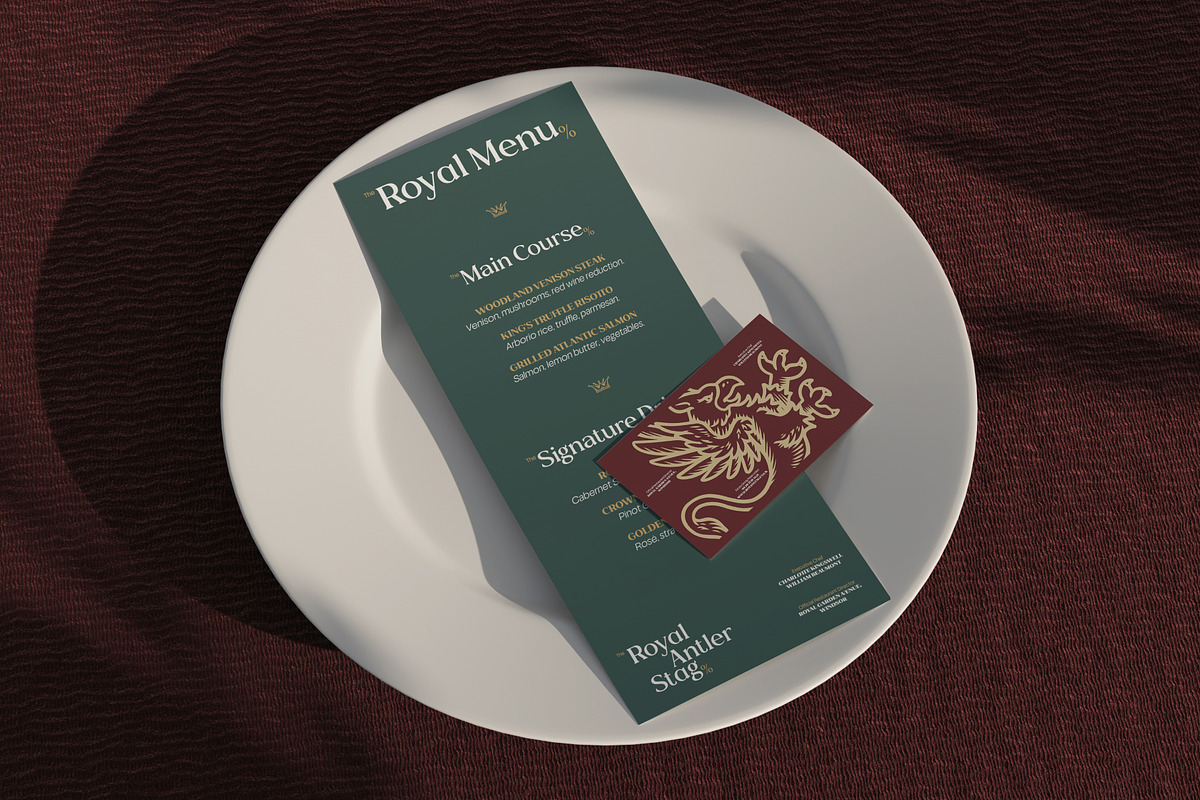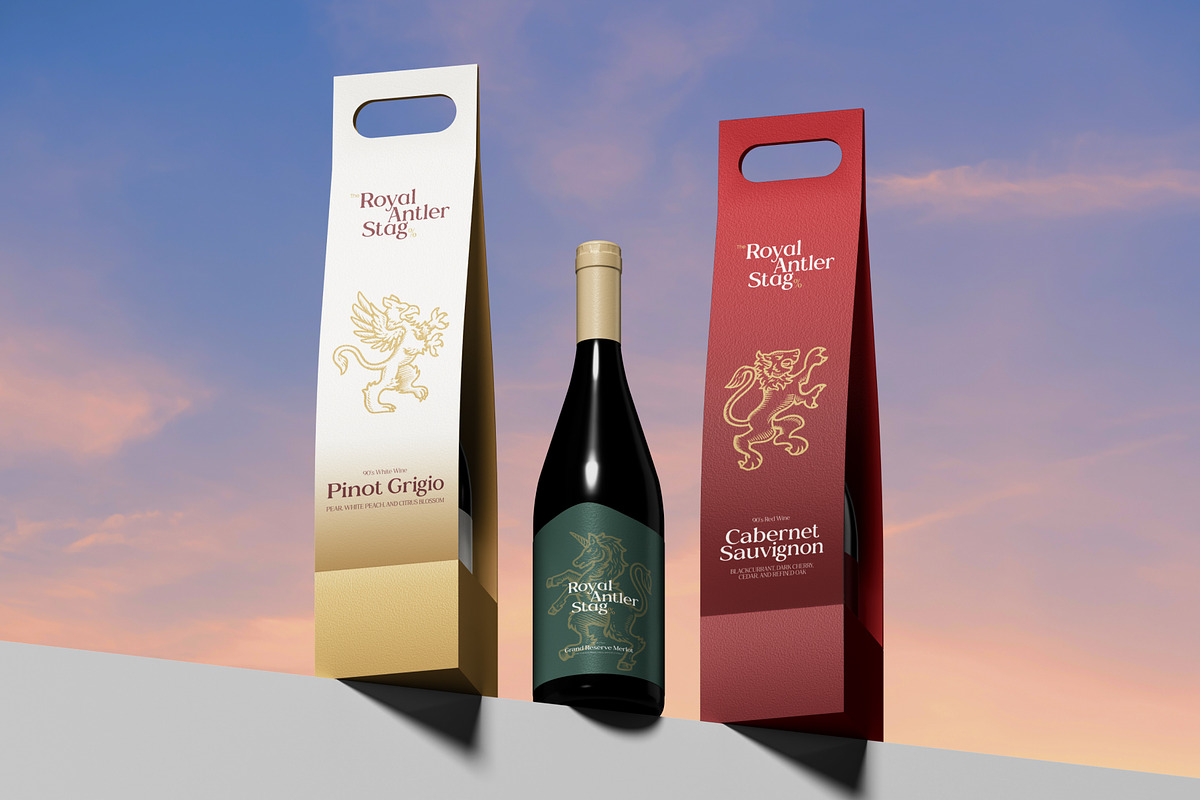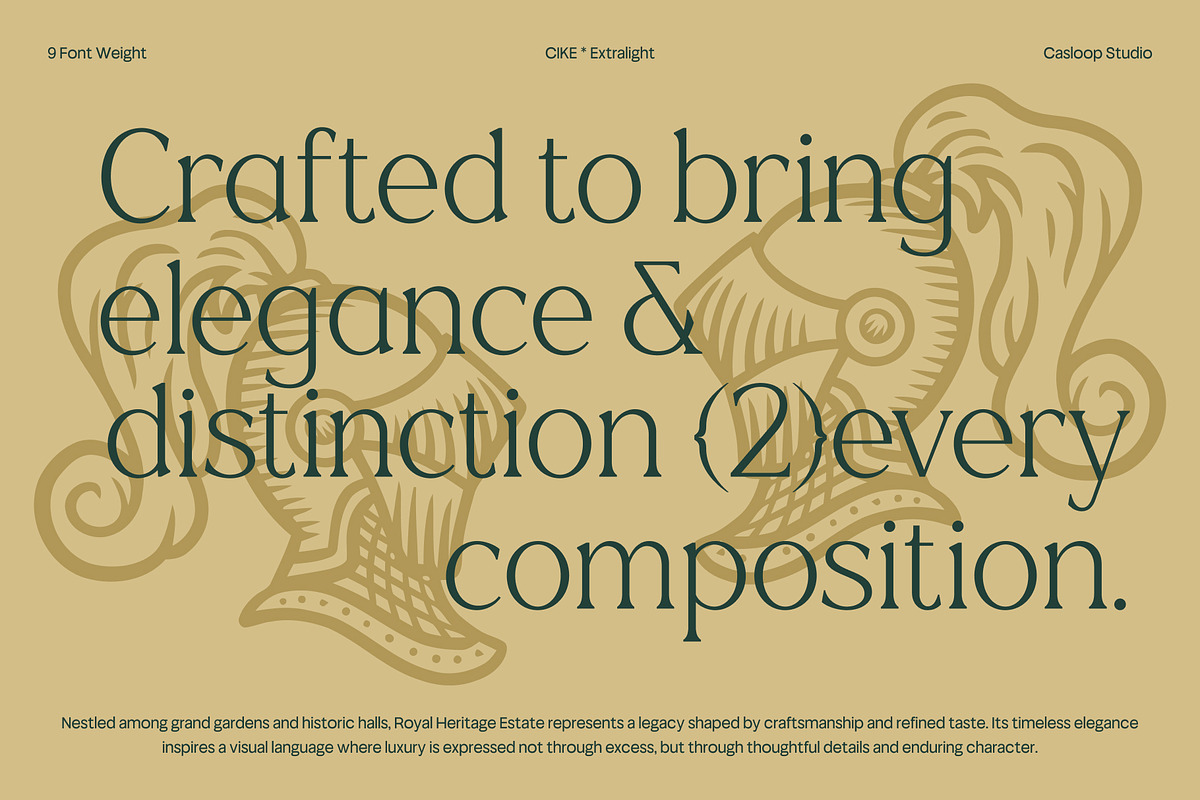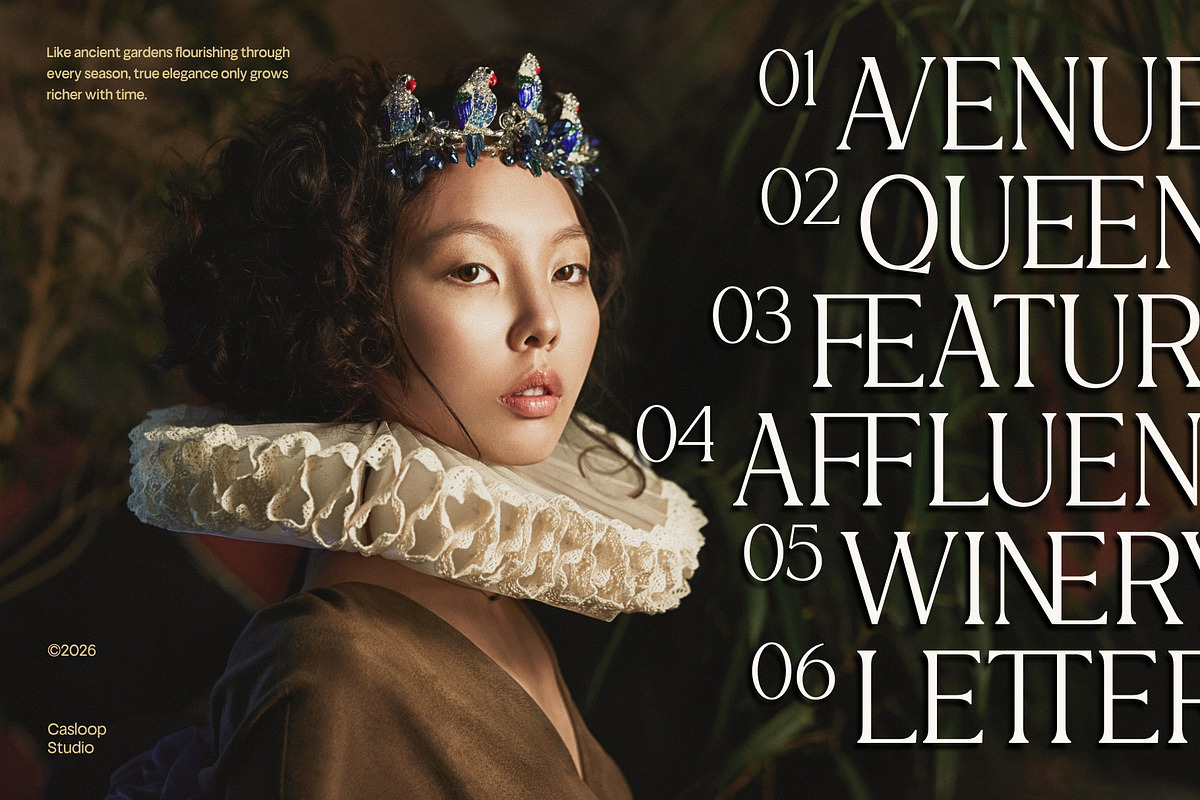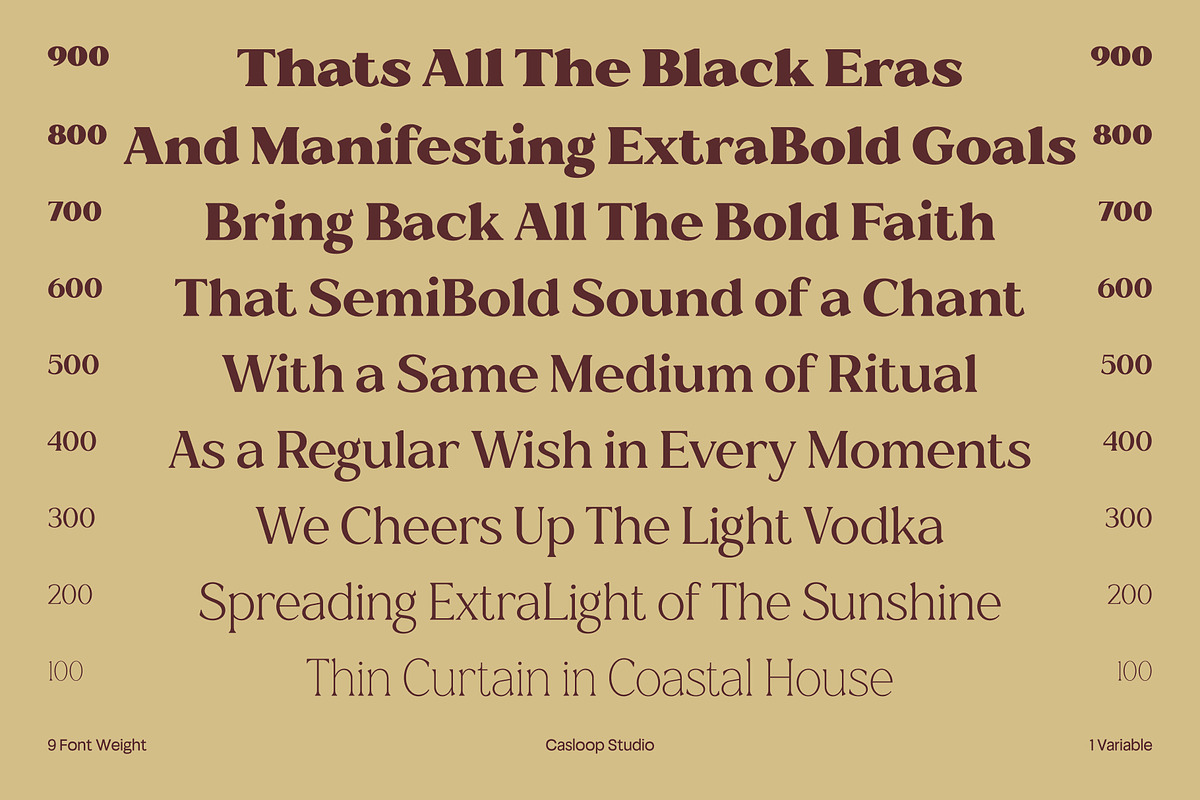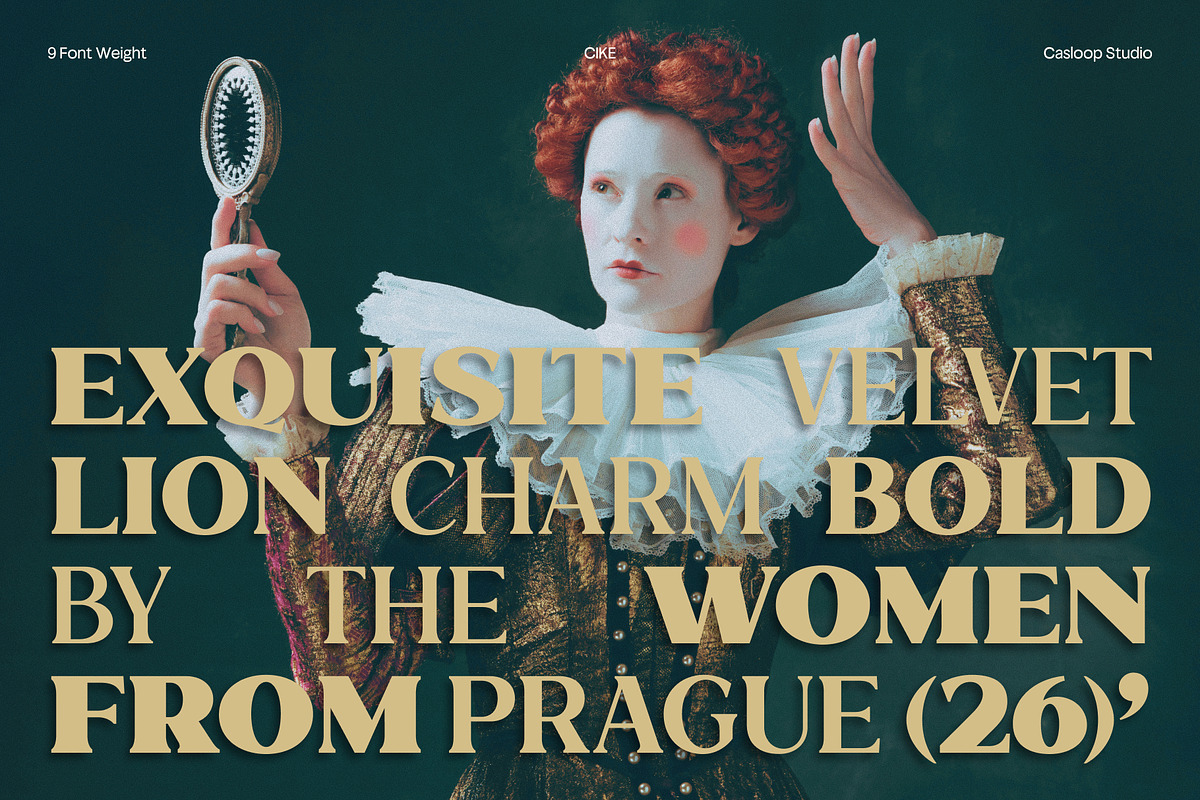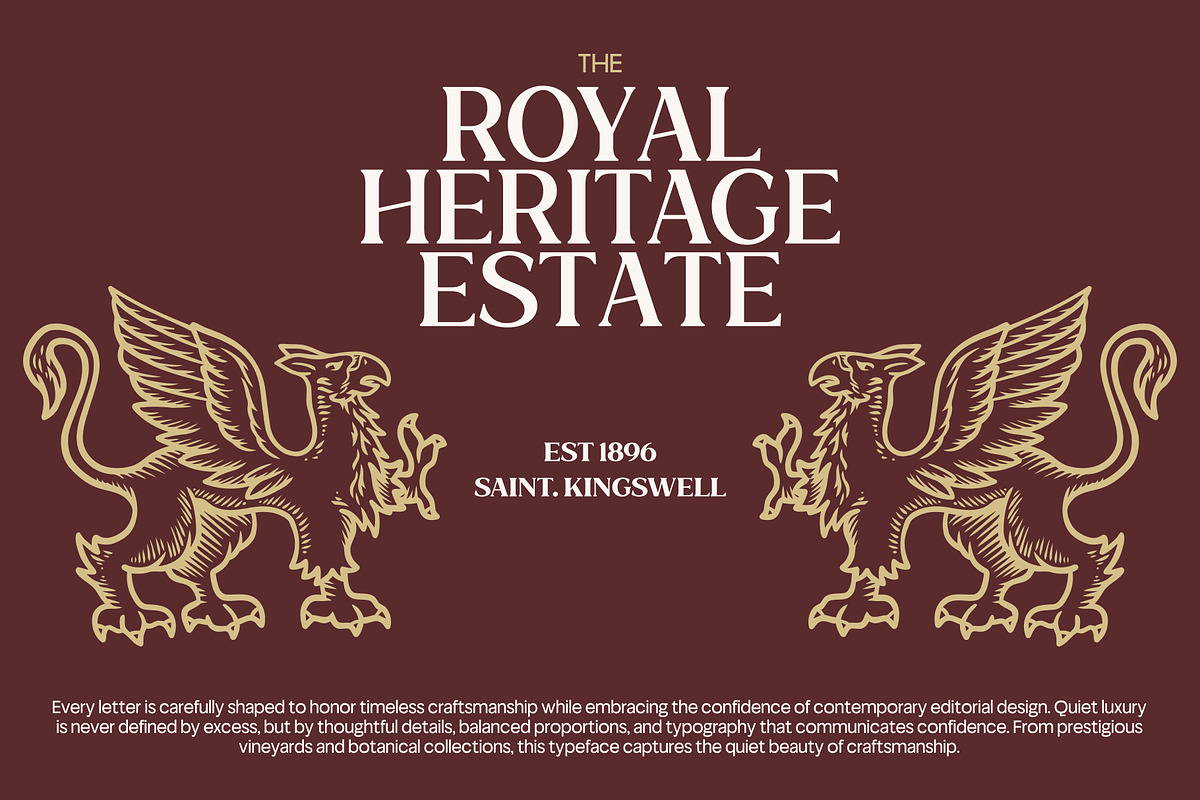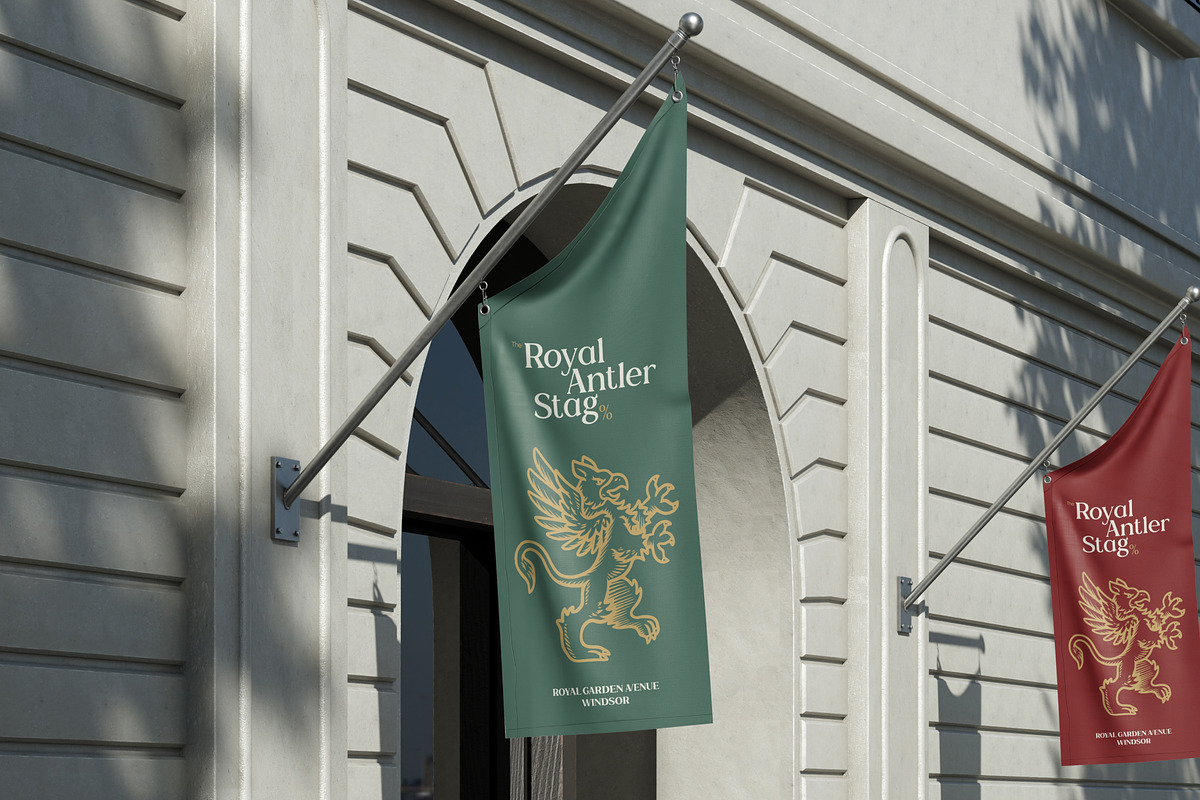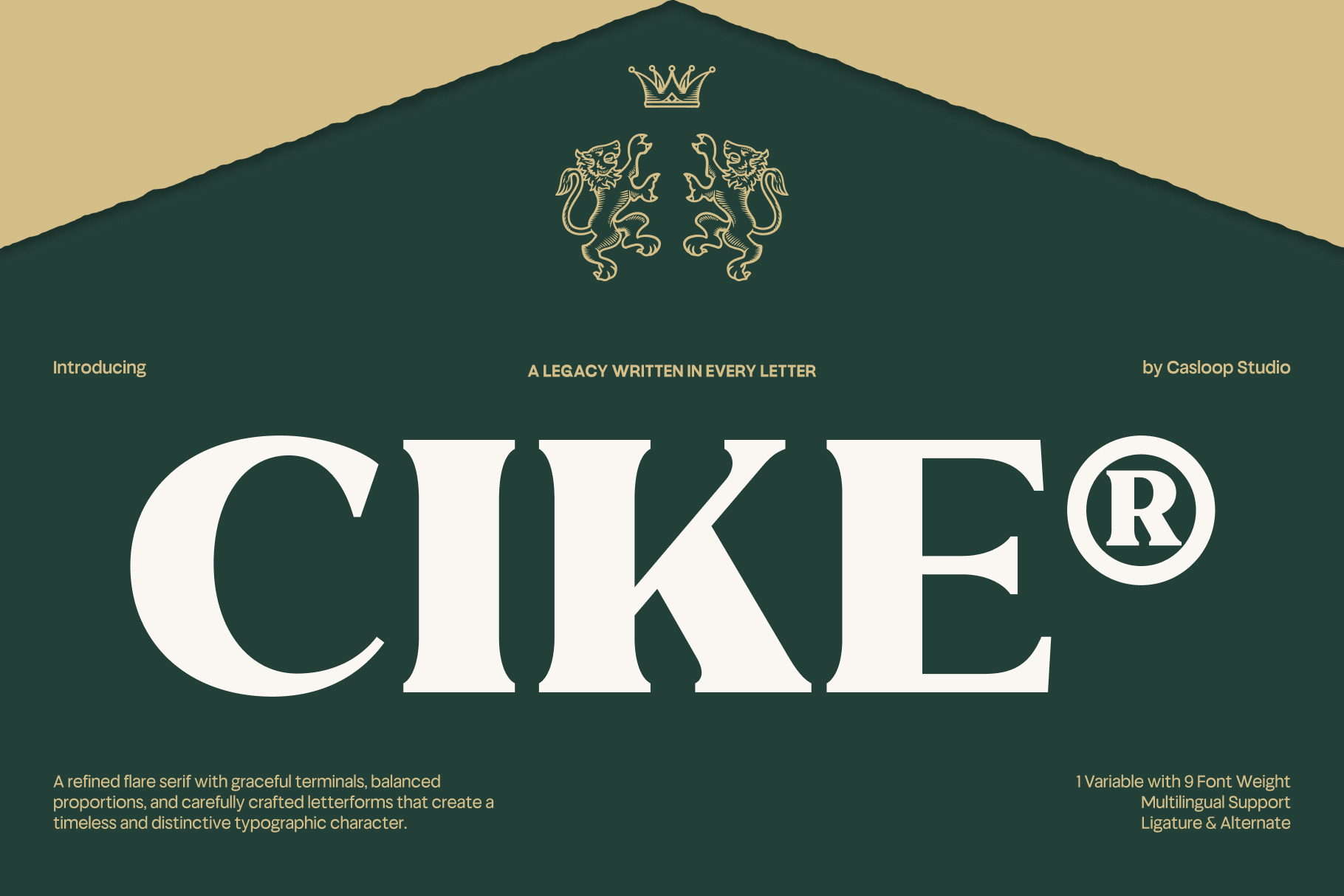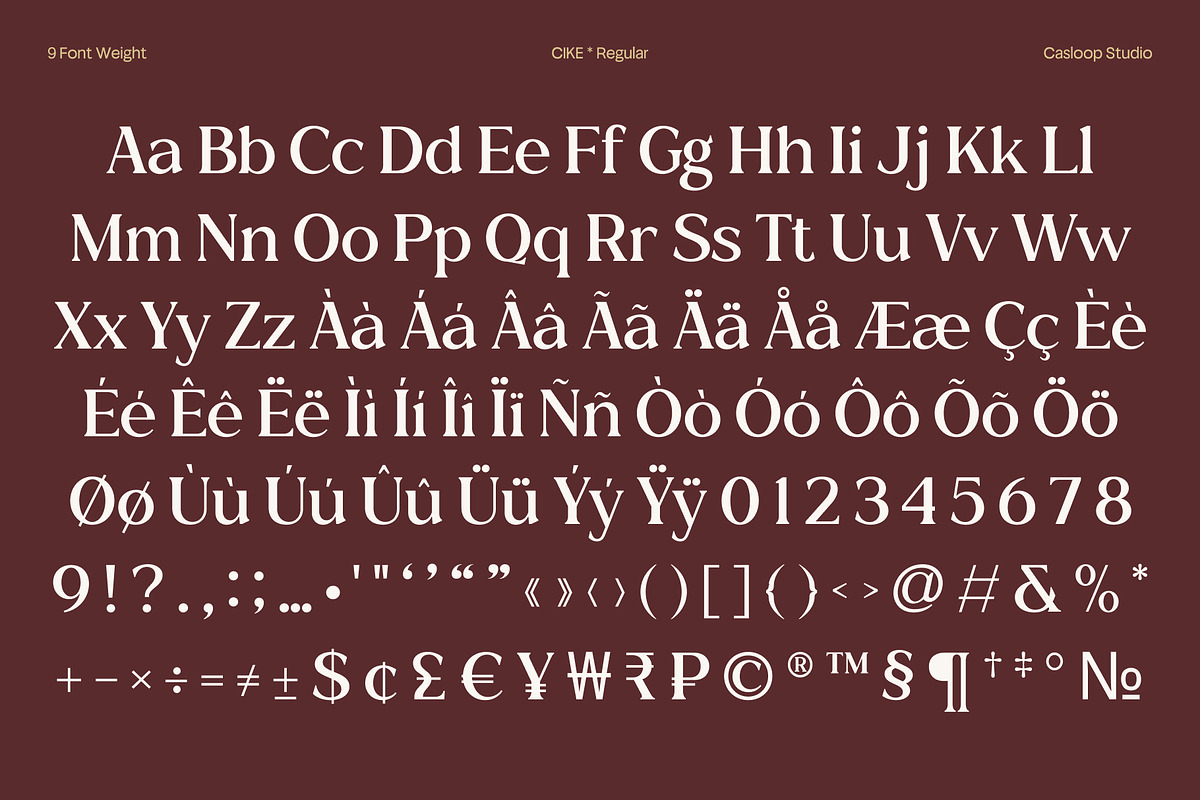
Cike – Flare Luxury Sans Typeface
Cike is a flare luxury sans typeface inspired by heraldic elegance and classic royal typography, combining graceful semi-serif construction with a clean contemporary presence. Its defining characters A, C, G, M, Q, and R showcase refined flare terminals, balanced classical proportions, and confident structural forms that create a distinguished visual identity without feeling heavy. The carefully sculpted terminals add a sense of nobility and sophistication, while the harmonious proportions maintain excellent clarity across every weight. With its versatile nine-weight family, Cike is perfectly suited for luxury branding, premium packaging, editorial headlines, fashion identities, hospitality, and projects that seek a timeless yet modern expression of elegance. Recommended pairing with: Cormorant Garamond, Manrope, Plus Jakarta Sans, Optima, Frutiger, Helvetica Neue
Uppercase & Lowercase,
Numbers and punctuation,
Ligatures & Stylistic Alternates Characters
Multilingulal Support : Bosnian, Catalan, Czech, Danish, German, English, Spanish, Estonian, Finnish, French, Irish, Croatian, Hungarian, Icelandic, Italian, Lithuanian, Latvian, Dutch, Norwegian, Polish, Portuguese, Romanian, Slovak, Slovenian, Albanian, Swedish, Turkish.